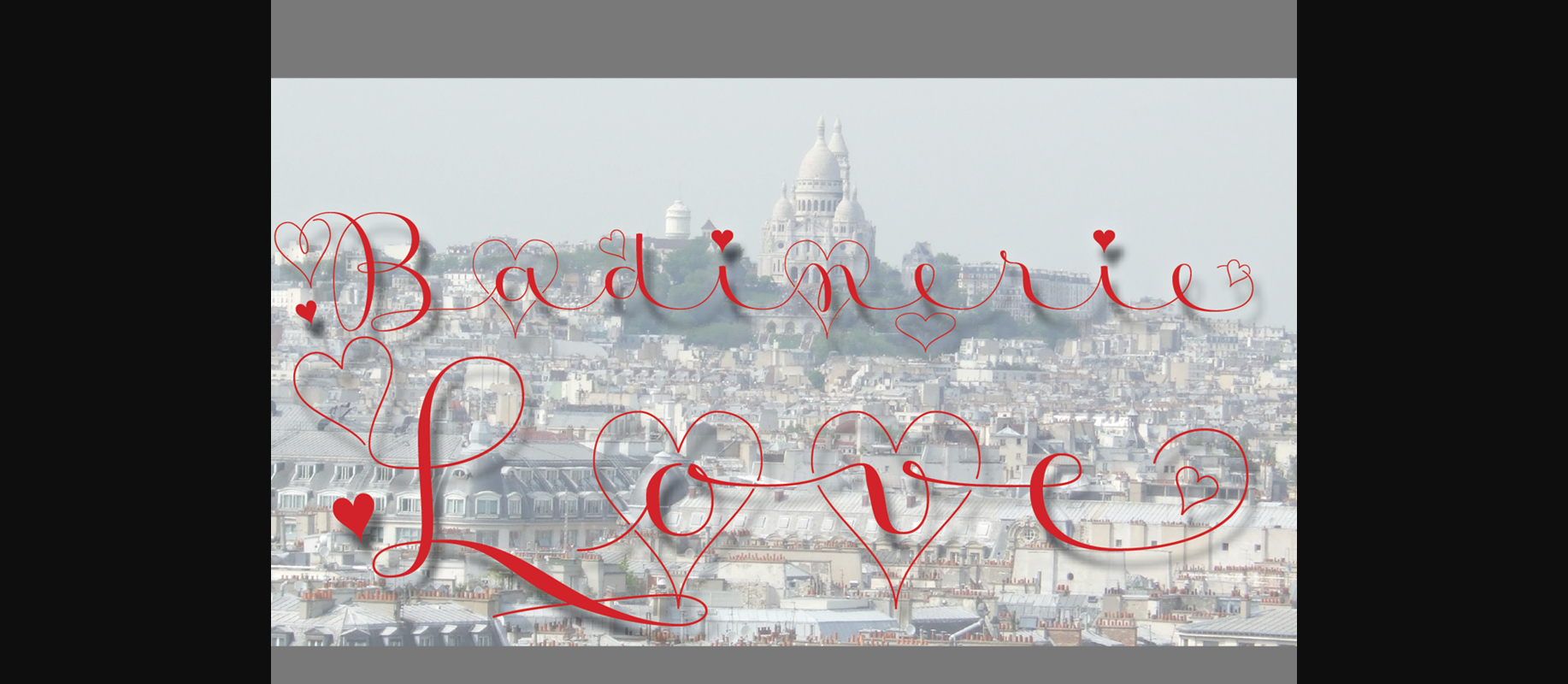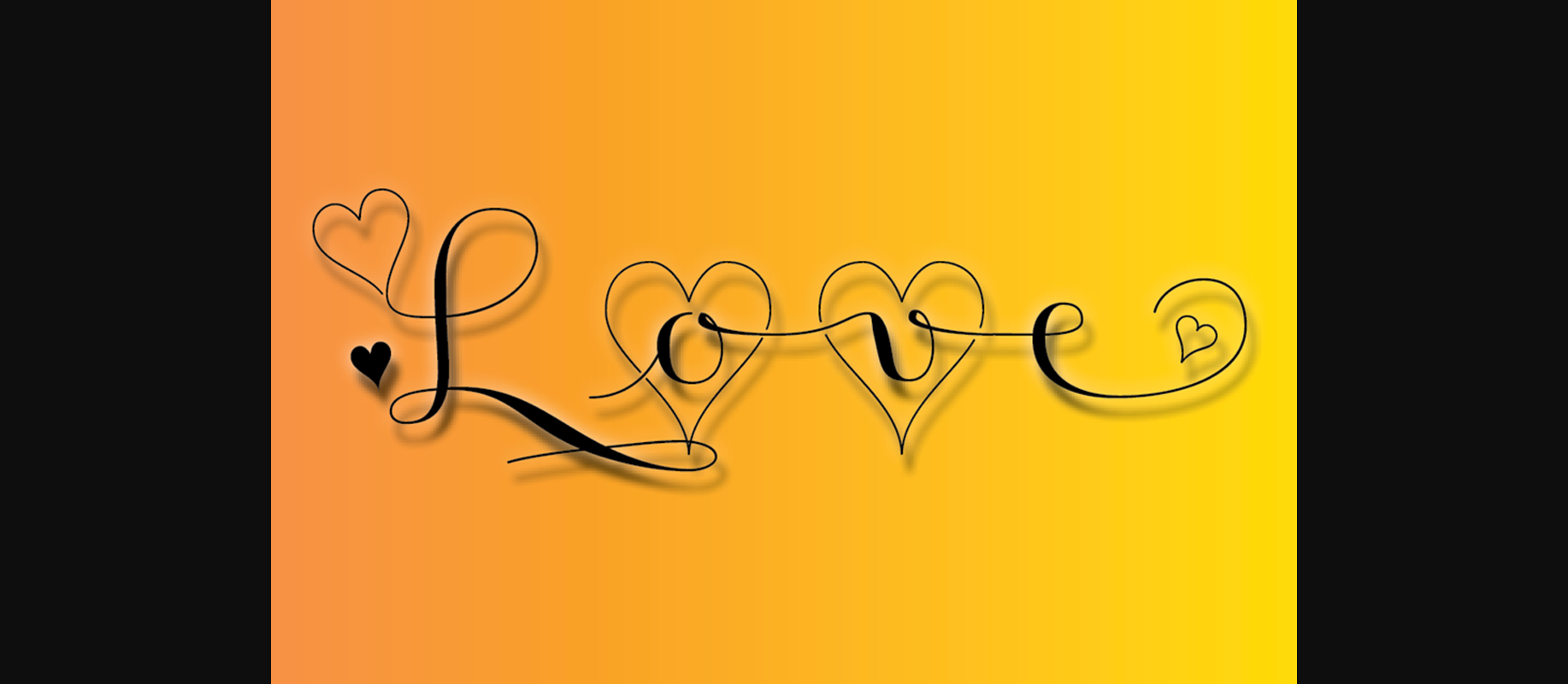
About Badinerie Love Font
Badinerie Love is a delicate, elegant and flowing handwritten decorative font. It has beautiful and well balanced characters and as a result, it matches a wide pool of designs, perfect for Valentine’s day. Add it to your most creative ideas and notice how it makes them come alive!